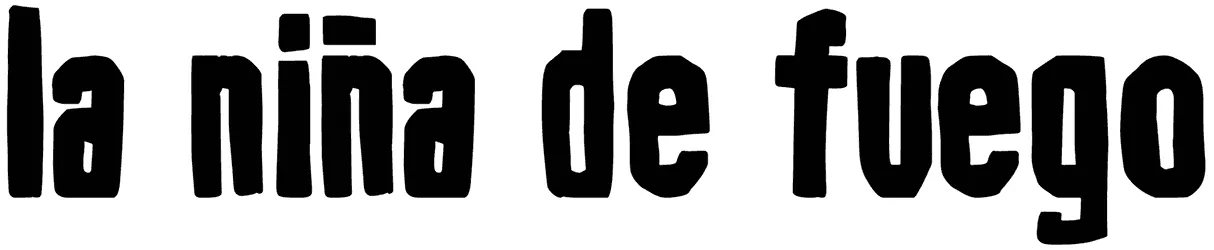
La Niña De Fuego Font
Being boring is one of the most dangerous traps in producing graphic content that threatens every designer, so we are passionate about offering you La Niña De Fuego, a that has the real potential to bring a tremendous variety to your artwork, including posters, logos, magazines, branding, and stationery.
If creating a sense of fancy, love, childishness, and jauntiness really matters to you, then seriously try this fancy font.